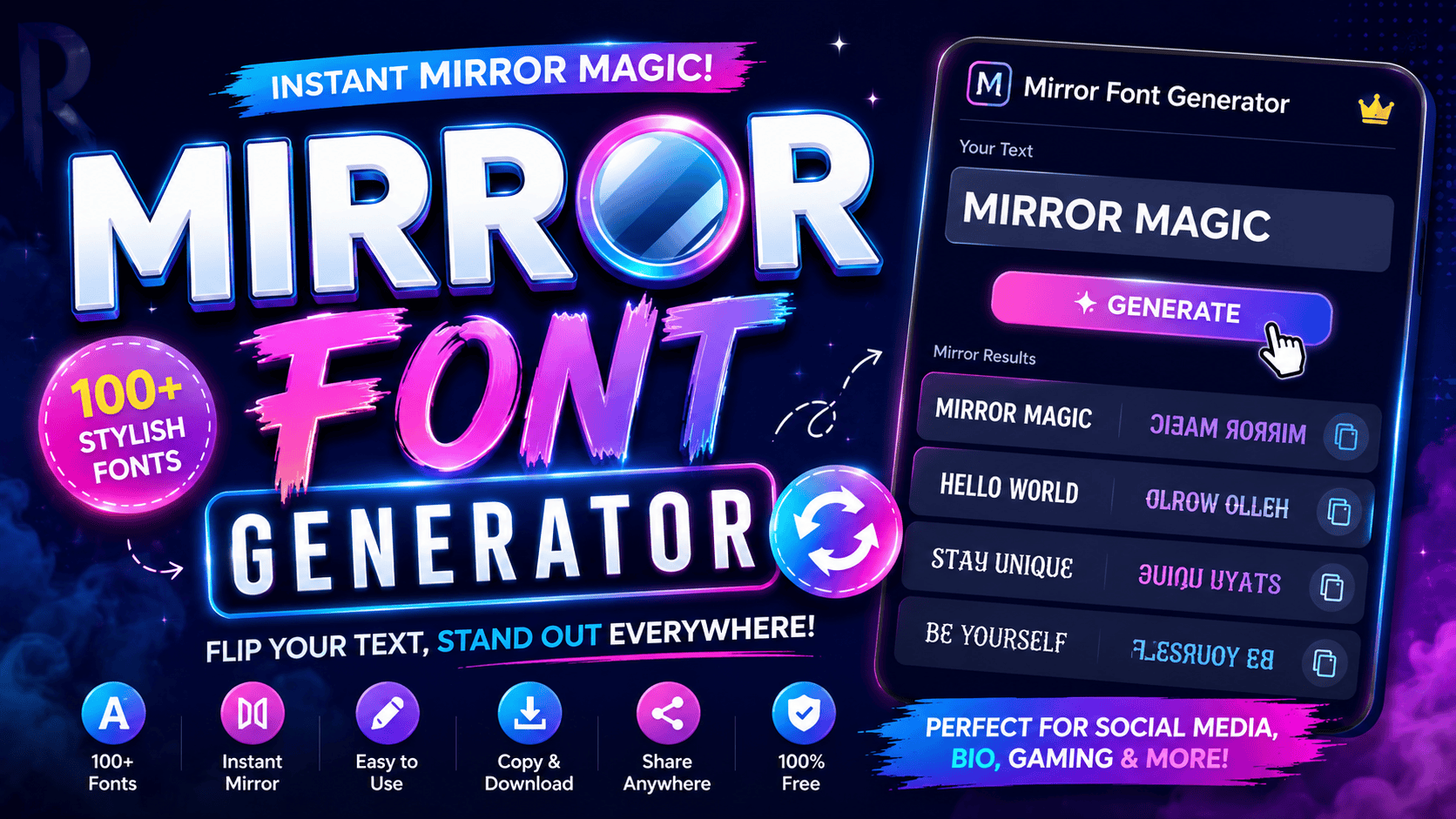
Mirror Font Generator
Create unique reversed and flipped text instantly. Perfect for creative social posts!
Observing digital symmetry requires a mirror generator that manipulates the orientation of every character. This tool creates a reflected version of your writing, ensuring the reversed text maintains a true reflection for unique, creative designs.
Users seeking mystique for gaming personas often paste their text into the input box. Instantly, the results are transformed, appearing within milliseconds as flipped characters ready for social media or perfectly engaging unique digital posters.
Type your words into the input box — the generator processes each letter in sequence without delay. I’ve found it reliably detects original text direction, applies your chosen mode, and produces mirrored output seamlessly and correctly.
The panel instantly renders your mirrored characters clearly, letting readers find their visual output with ease. Results appear horizontally or vertically by mode, giving content creators across mobile, desktop, and tablet devices a clean preview.
Alternative
Artists and designers seeking an alternative often incorporate manual Unicode encoding directly. This simple process lets anyone type individual Latin letters with IPA counterparts, maintaining symmetry without solely relying on multi-platform applications for all transformations.
Gamers establishing memorable multiplayer names sometimes reverse word order manually, using 3D Rotation effects. Developers also validate string manipulation functions through built-in processes, making eye-catching logos and artwork free from formatting glitches on any system.
Key Features / Benefits
Modes of Mirroring
Lettering reversal, orientation flips, and order changes represent three key mirroring modes. Graphic enthusiasts commonly use each style to enhance artistic language, replacing standard character positions with casual yet visually distinct effects and creative messages.
Mirror Wording
Mirror wording reverses all symbols from the Roman alphabet, swaps reading directions, and maintains a backwards visual equivalent. This technical approach uses Unicode substitute characters — each represents uppercase letters, numbers, and punctuation with approximate match.
Mirror Each Text Lettering
Mirror Text mode handles each individual lettering by applying flip logic at the character level. Unlike basic wording changed approaches, this form keeps unchanged letters like b, d, p, q visually real and defined consistently.
Reverse Word Order
Unlike character flipping, reverse word order sends your sentence back to front at each step. Every word shifts to an opposite slot—this primitive option works as a replacement, entirely free of complex converter logic.
Who Uses the Mirror Text Generator?
From smartphone users to laptop professionals, this tool sees real demand based on creative needs. Designers, educators, and translator communities use it to mimic stylized text, adding a personal touch across 100 different digital platforms.
Social media influencers, students, and developers who value accessible design are among the top users. Whether they sign posts or upload content, the tool offers time-saving support without needing costly packages or external server processing.
What Is the Difference Between Mirrored Text and Reversed Text?
Mirrored text reflects each individual character along its vertical axis — like holding paper before a bright mirror. Reversed text only flips the sequence order. Both alter how you read them, but through different optical mechanisms.
The distinction matters more than people commonly assume. A camera pointed at mirrored text decodes it quite differently than reversed text. The background logic in Unicode computer encoding treats each as a separate typographic challenge.
How to Mirror Text in Word
Microsoft Word supports a text flip through its page layout tools. The work is surprisingly light — select your text, open Format Shape, apply a 3D rotation, and generate a mirror effect regardless of operating system.
Are There Length Limits?
Most mirror text generators offer no hard character cap. Options for input range from short captions to full paragraphs — paste freely and the tool converts everything instantly, regardless of actual length or text complexity involved.